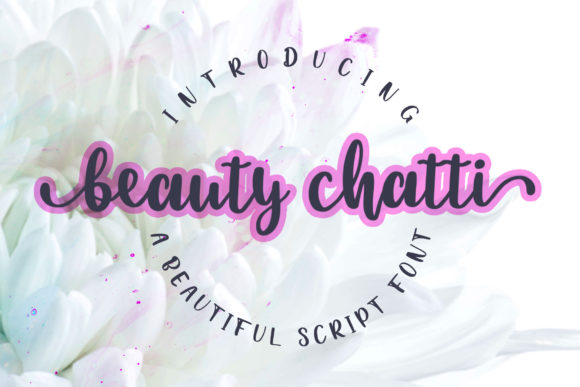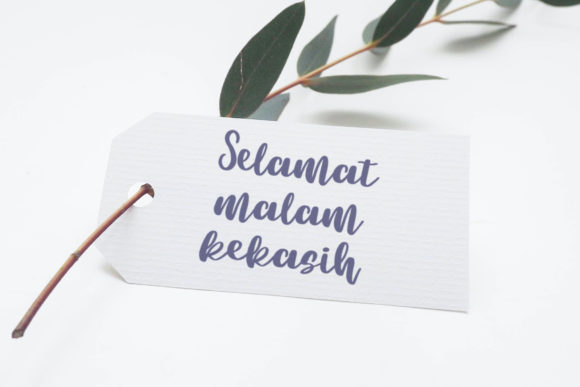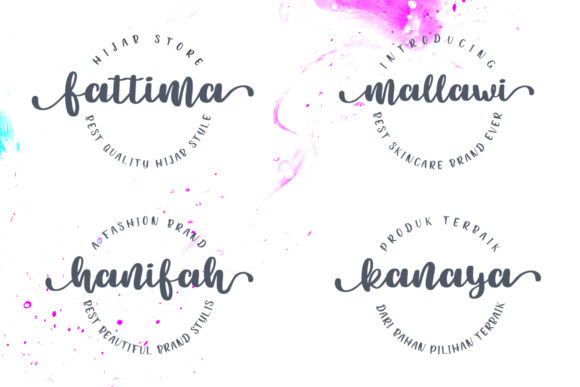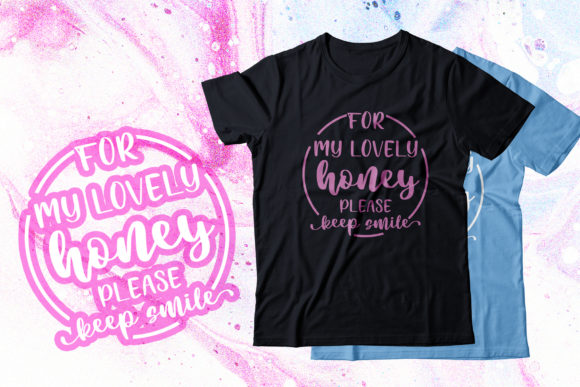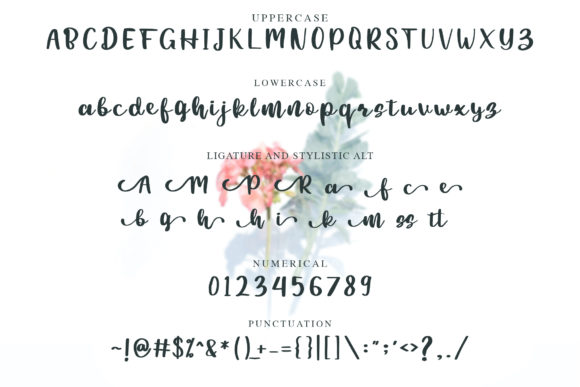
Beauty Chatti Font
About Beauty Chatti Font
Beauty Chatti is a sweet, handwritten font, created with the help of a brush pen. Its incredibly joyful feel allows Beauty Chatti to brighten up a variety of design projects! Let your imagination be the limit!